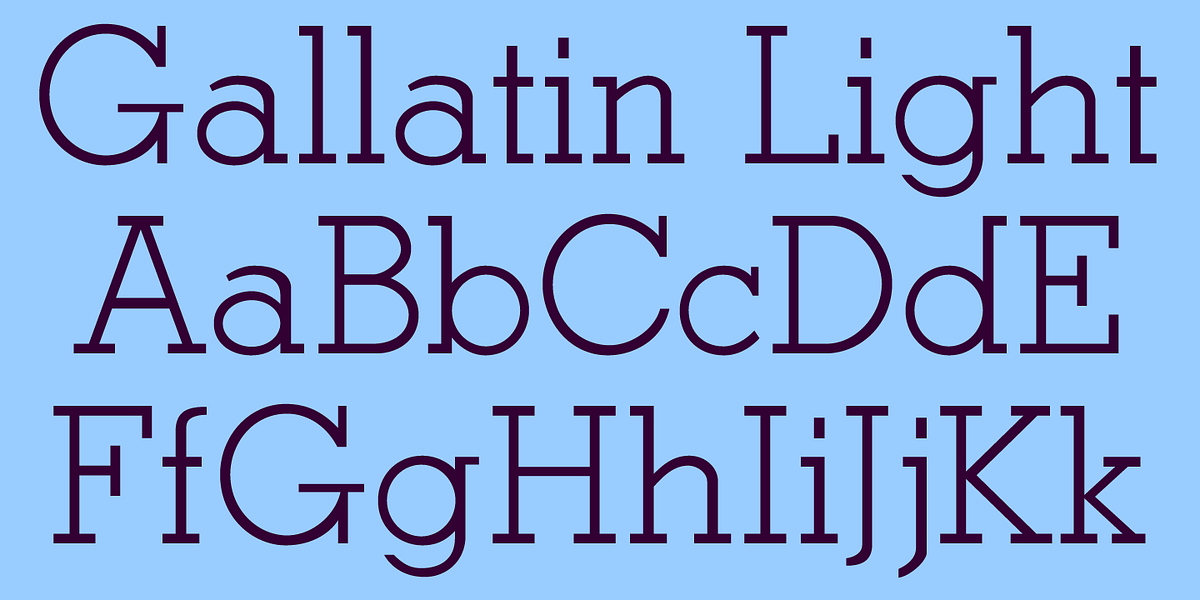
Gallatin Light
This is a light weight slab serif font with a modern aesthetic. Its geometric influences give it a clean and structured appearance, making it suitable for headlines, branding, and editorial design.